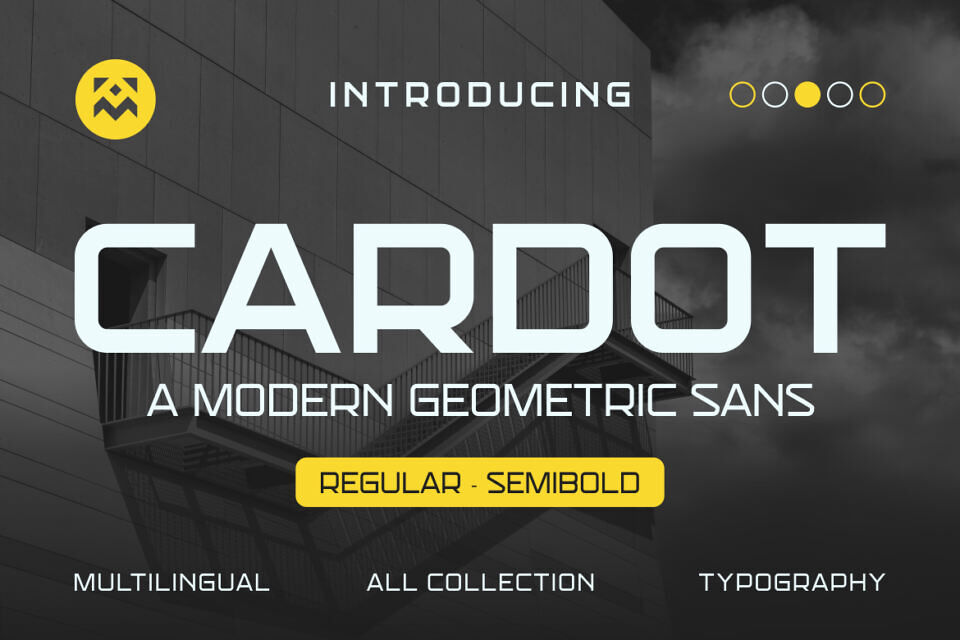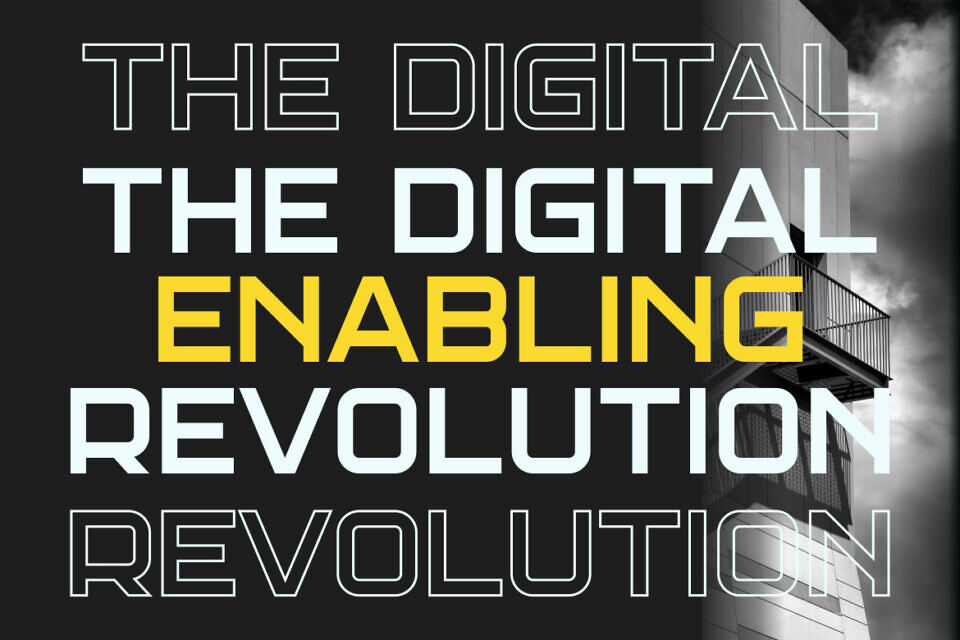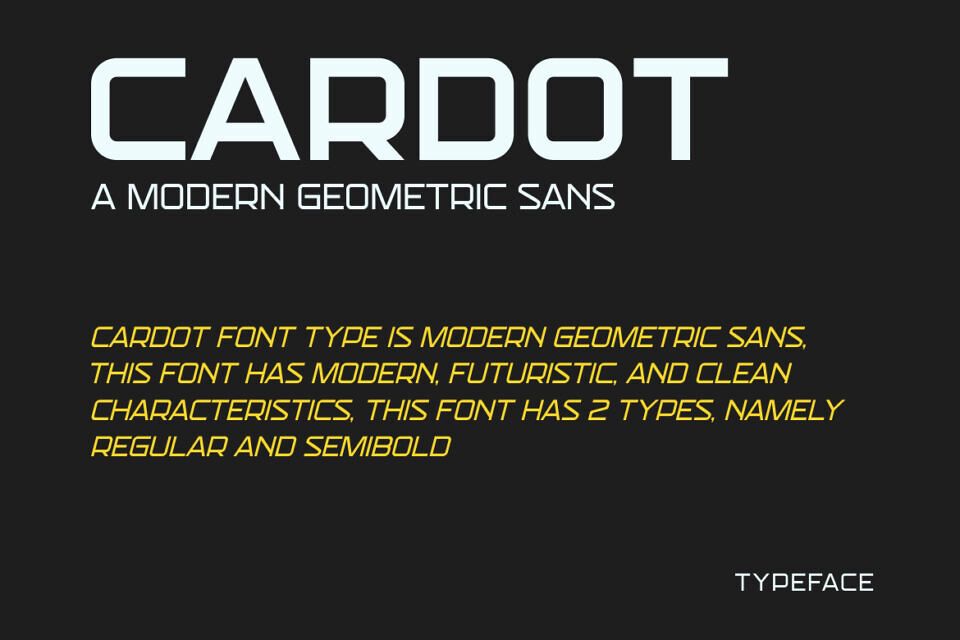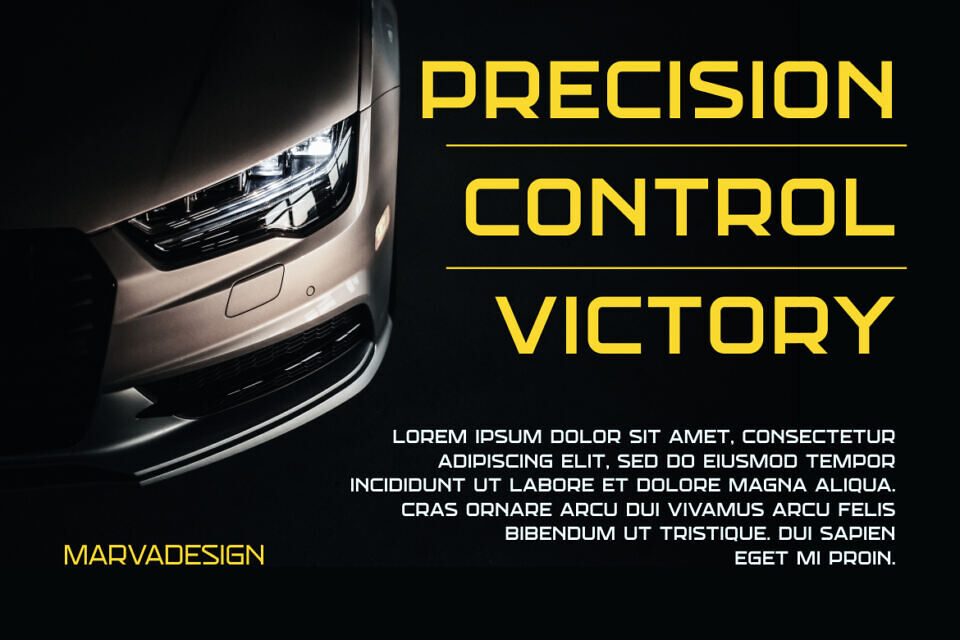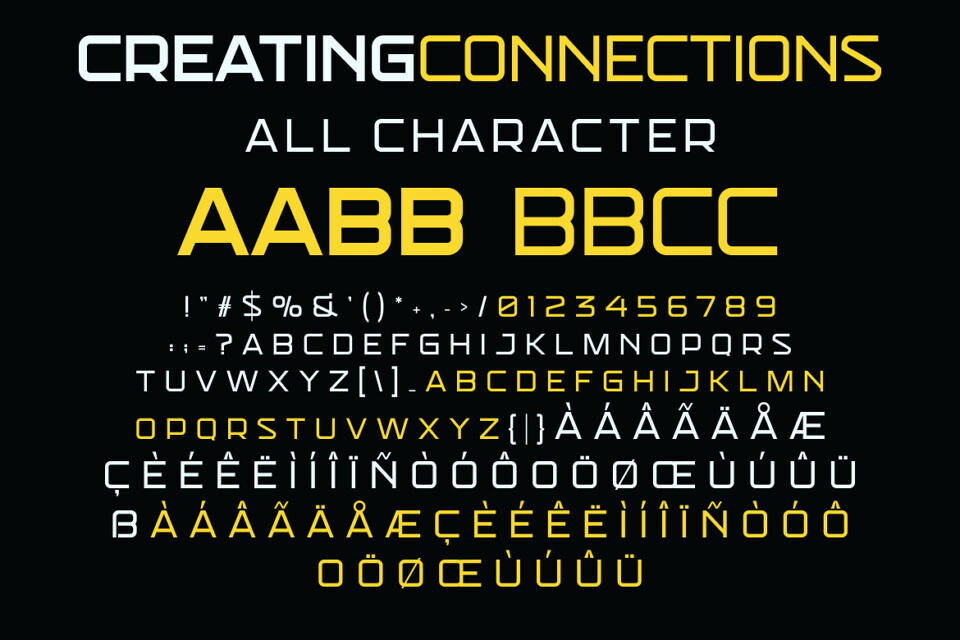
Cardot Font
Cardot is a bold and authentic sans serif font. The font is suitable for any branding project like logo, Template Design, Product and many more.
Designed by: Marva Type